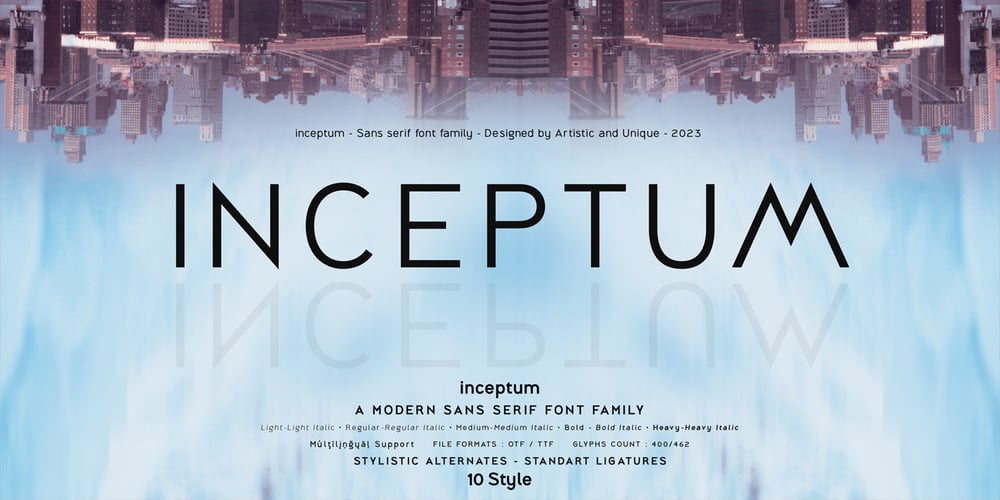
Inceptum
Inceptum font
Inceptum Font Family was designed by Osman Taner Kucukgenc and published by Artisticandunique. Inceptum contains 10 styles and family package options. inceptum – Sans serif font familyIt help you develop your creative projects with its 10 styles and futuristic alternative characters and multilingual supports. With these features, it will be effective in creating alternatives in your projects. It is also assertive about being a highly readable font with different wights.Ideal for books and magazines, editorials, headlines, websites, logos, branding and more. This font family can meet your needs in all creative projects, modern and classic.